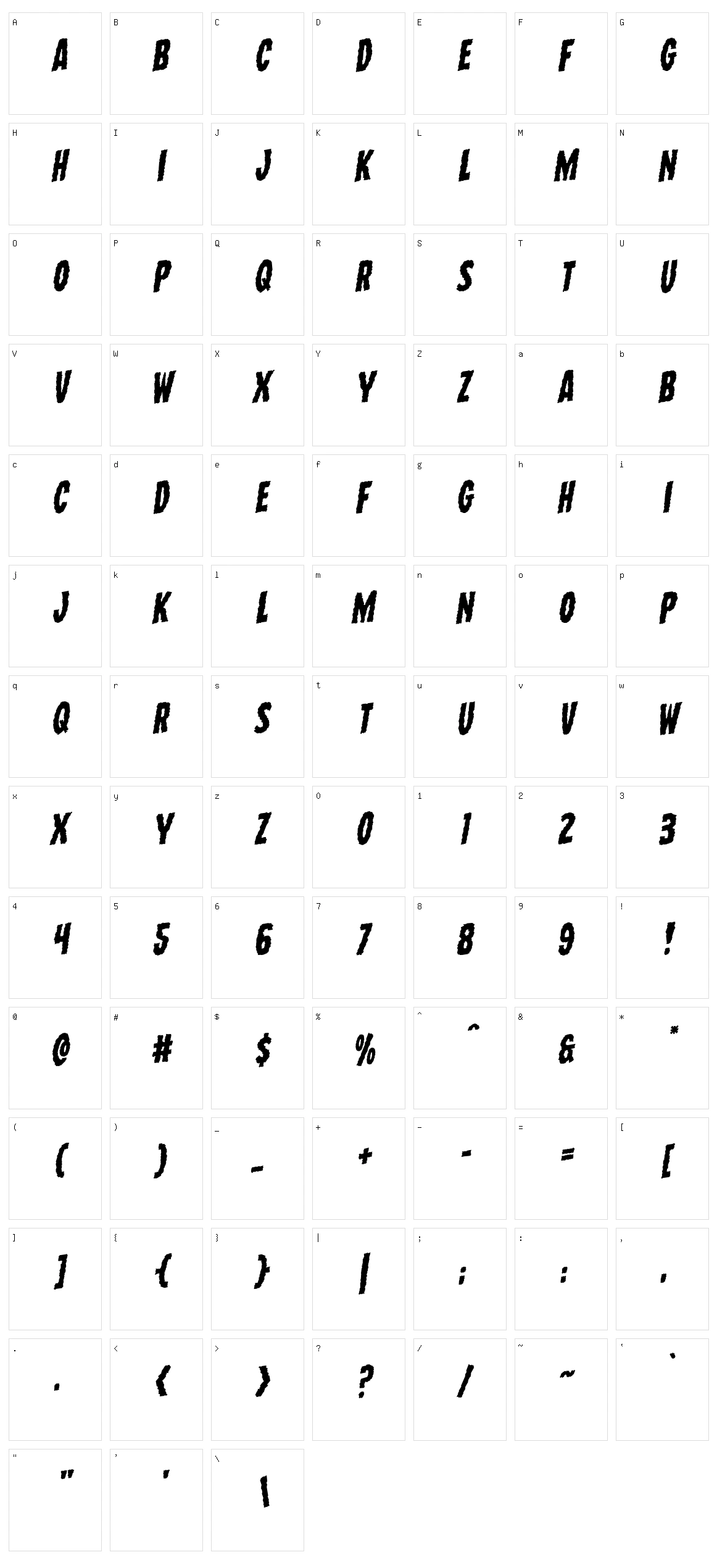
The free font Wolf Brothers is carefully designed by Iconian Fonts, showcasing a thoughtful balance of creativity and usability and falls under the Horror font style. When you download the ZIP file, it contains only 942.22 KB of font files, making it lightweight and quick to download. Please review the license details below to understand permitted usage and distribution rights. If license information is not available, we recommend using this font for personal projects only or contacting the author directly for commercial usage permissions.
This font comes with the following 23 versions: Regular, Italic, Super-Italic, Leftalic, Rotalic, Bold, Bold Italic, Light, Light Italic, Condensed, Condensed Italic, Expanded, Expanded Italic, 3D, 3D Italic, Academy, Academy Italic, Rotated, Rotated 2, Staggered, Staggered Italic, Staggered Rotalic and Leaning Italic.